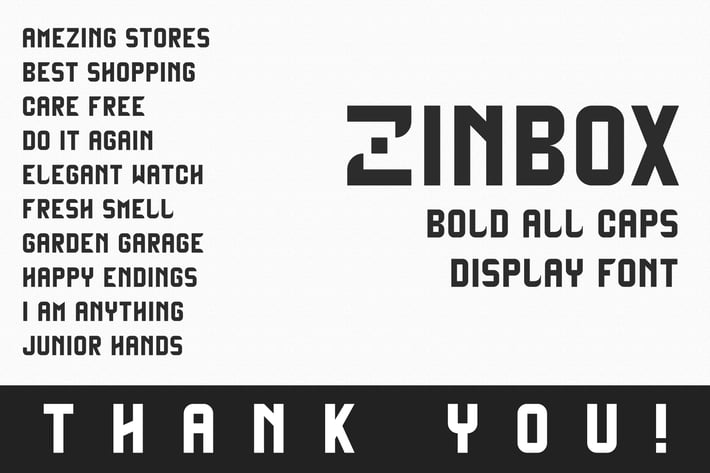
Zinbox - Bold Display Font
A Fresh Clean Display Font, Mostly Made with the square boxes, Specially Fits for Branding and Out Door Adverting use.
All Caps Display Font.
All Capital letters, numbers, and punctuation’s.
Included 8 Alternate Glyps.